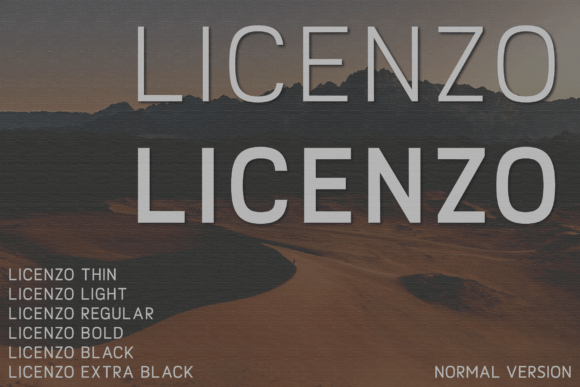
Behold the Licenzo Font, an exceptional creation that redefines the art of typography. Embrace a symphony of style and grace, where minimalism and elegance converge to evoke a timeless allure. This sans serif masterpiece, brought to life by Nan Design, is not merely a collection of letters; it's an artistic journey that will transform your designs into captivating expressions of beauty.
With five distinct weights, Licenzo adapts effortlessly to your creative vision. From the delicate finesse of Thin to the bold authority of Black, each weight carries a unique personality, allowing you to orchestrate a visual symphony that resonates with your audience. Whether you're crafting a captivating magazine layout, designing a logo that commands attention, or conjuring a film poster that captivates hearts, Licenzo is your maestro, guiding your vision to greatness.
Experience the harmonious blend of modernity and luxury as Licenzo elevates your designs to new heights. Its clean lines and balanced proportions create an aura of sophistication that transcends time. Let your words dance across the page, imbued with an elegance that speaks volumes. Witness the transformation as your creations blossom into masterpieces, leaving an indelible mark on the beholder's mind.
The Licenzo Font is not just a tool; it's an extension of your creative spirit. Its versatility knows no bounds, empowering you to weave tales of beauty and inspiration in endless realms of design. Unleash your imagination and let Licenzo be your muse, crafting visual narratives that ignite emotions and leave a lasting impact.
Embrace the Licenzo Font today and embark on a typographic odyssey that will redefine your creative horizons. As you explore the depths of its versatility, you'll discover a font family that is both aesthetically pleasing and functionally brilliant. Make Licenzo your font of choice and prepare to witness the transformation of your designs into works of art that resonate with the world.